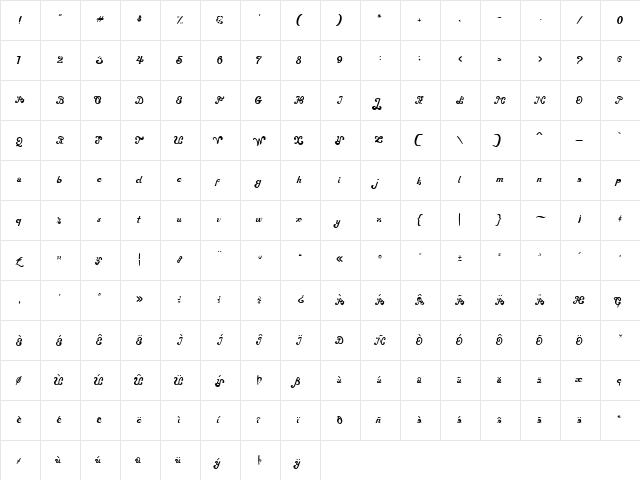
Magic Wand Regular
Design Context for Magic Wand Typeface
Magic Wand is a composed and adaptable typeface that performs quietly and consistently across a wide range of design contexts.